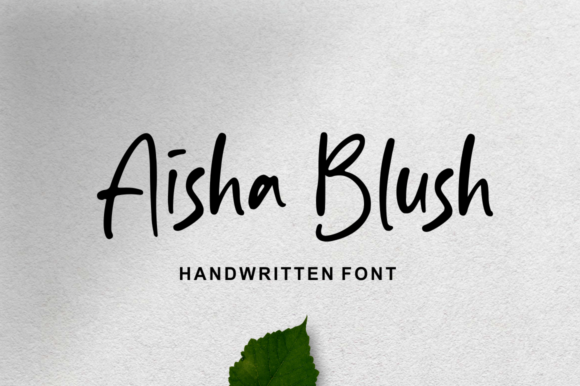
Immerse yourself in the enchanting world of Aisha Blush Font, a display font family designed to capture hearts and transform your creative visions into captivating realities. Crafted by the talented Sronstudio, Aisha exudes a playful and flirtatious personality, ready to infuse your designs with a touch of whimsy and sophistication.
Aisha Blush Font is more than just a collection of letters; it's an artistic expression that dances across your screen, captivating your senses and leaving a lasting impression. Its unique ligatures and alternate characters add an extra layer of charm, allowing for endless possibilities in your design explorations.
With its bold, expressive strokes and alluring curves, Aisha Blush Font demands attention and commands a presence that will make your projects shine. Whether you're creating eye-catching logos, vibrant social media graphics, or stunning website headers, Aisha will elevate your designs to new heights.
Unleash your creativity and embrace the boundless possibilities that Aisha Blush Font offers. Let its playful spirit ignite your imagination and transform your designs into captivating masterpieces. Experience the magic of Aisha Blush Font today and unlock a world where your creations come alive with personality and flair.